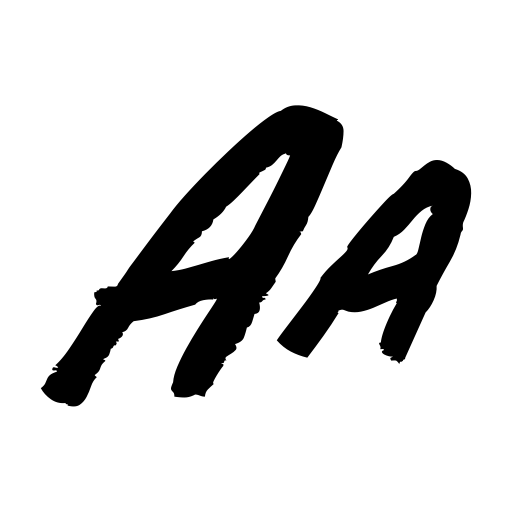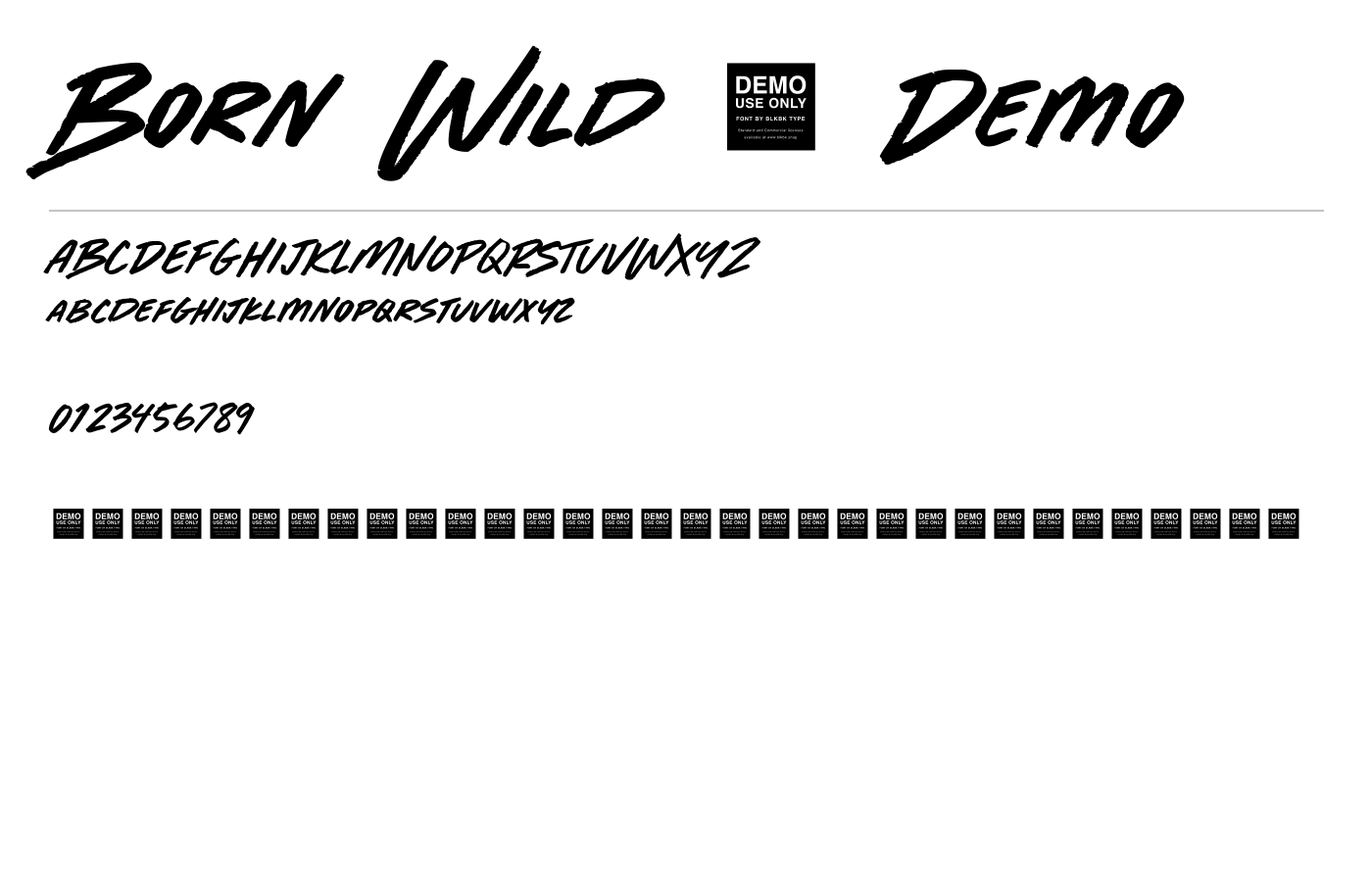
Born Wild is a bold and energetic brush script font with a raw, hand-painted feel that brings a sense of adventure and spontaneity. Its dynamic strokes and slightly irregular shapes make it perfect for designs that want to convey excitement, creativity, and a rugged, authentic vibe, ideal for logos, posters, and branding that seeks a wild, untamed personality.
Born Wild - Demo Font
About Born Wild - Demo Font
| Font family | Born Wild - Demo Font |
| Designer | BLKBK |